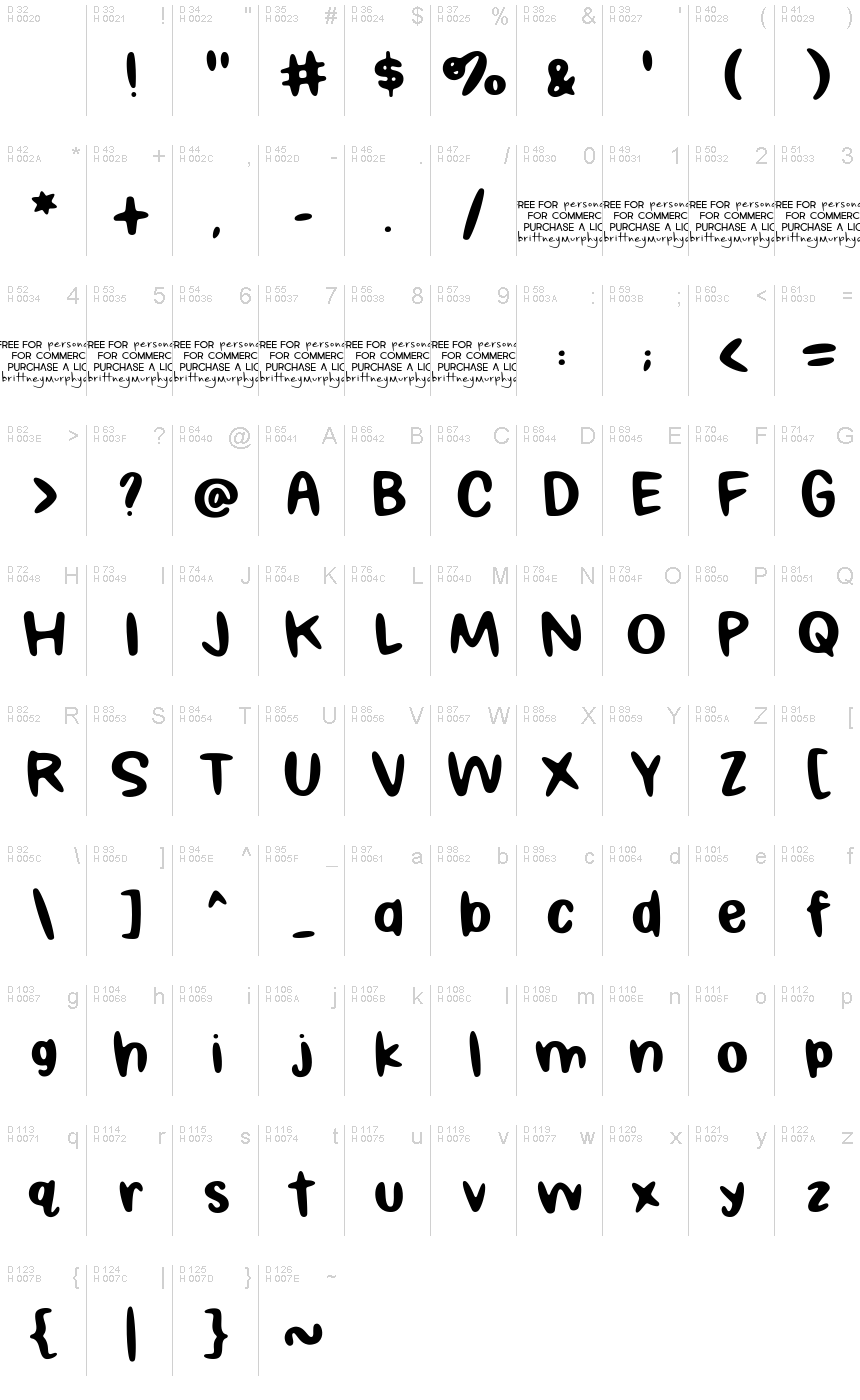
Grumpy Sunshine Demo
Grumpy Sunshine, a bold and captivating font designed by Brittney Murphy Design, exudes a playful, cartoon-inspired aesthetic. With its distinct, whimsical letterforms and a touch of grumpiness, this display typeface captivates the eye and evokes a blend of emotions. The font's thick, dynamic strokes and quirky, expressive shapes create a sense of energy and character, making it an ideal choice for adding a touch of personality to various design projects.
Grumpy Sunshine's versatility shines through, making it a versatile option for a wide range of applications, from eye-catching headlines and logos to playful branding and packaging designs. Its bold, distinctive style allows it to stand out and command attention, making it a compelling choice for projects that aim to convey a sense of fun, quirkiness, or a touch of attitude.